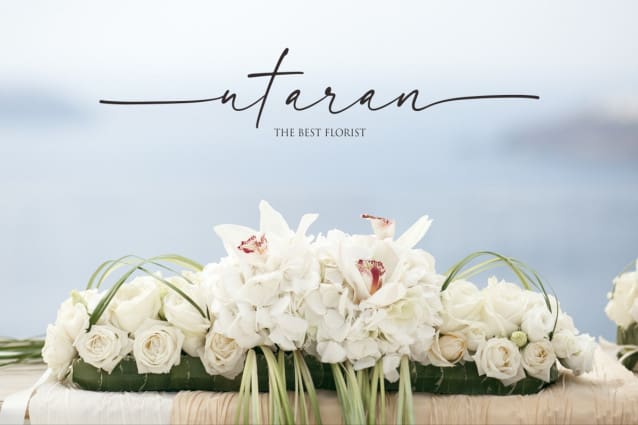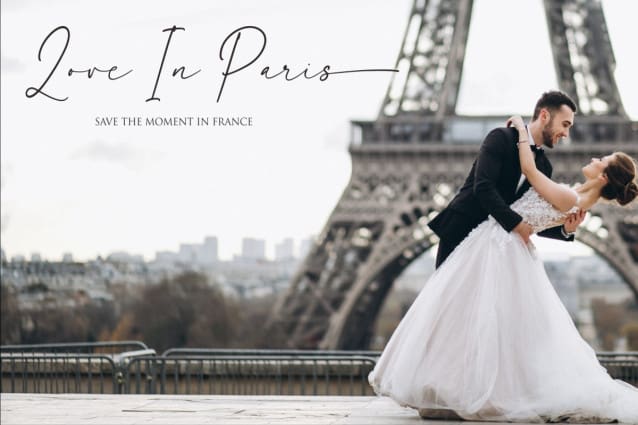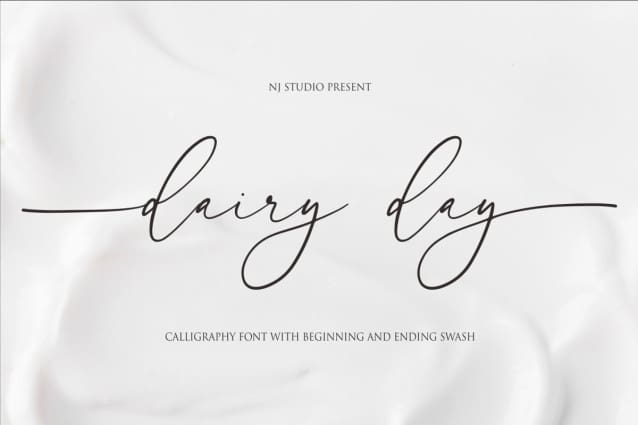
Dairy Day Font
Dairy Day Font a modern calligraphy font with beginning and ending swash. It features ligatures characters that will take your projects to the next level!
This font is PUA code which means you can easily access all the glyphs that are full of natural! It also features many special features including glyphs. font designs that are made for various vector designs, printing such as digital wedding blogs, online shops, social media, while printing can be used in the field of product clothing, accessories, bags, pins, logos, business cards, watermarks and many others …